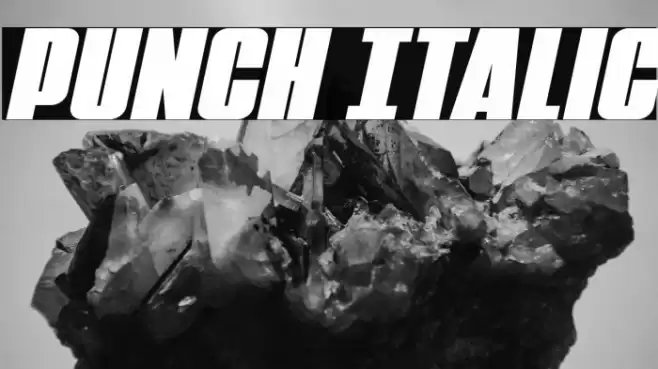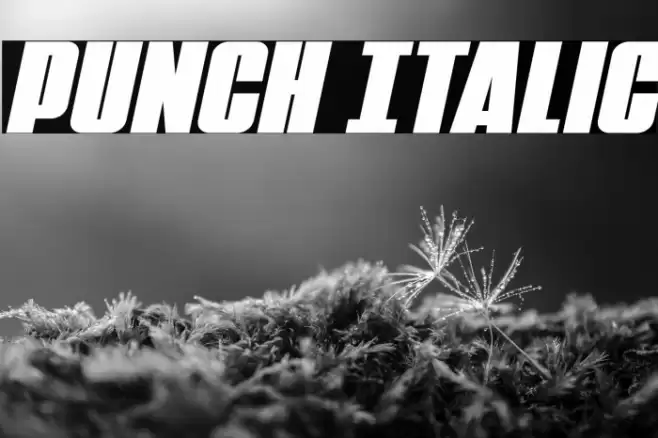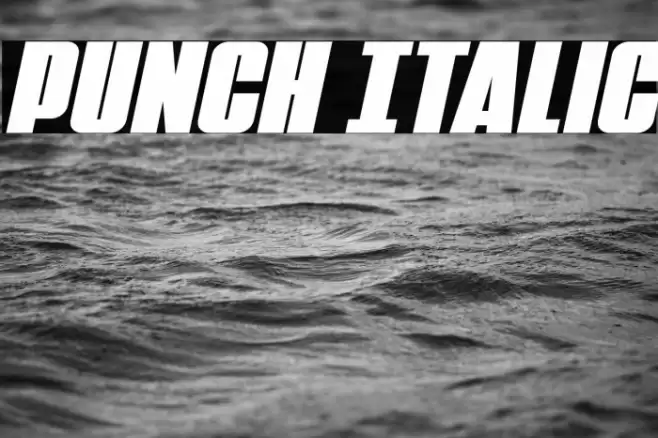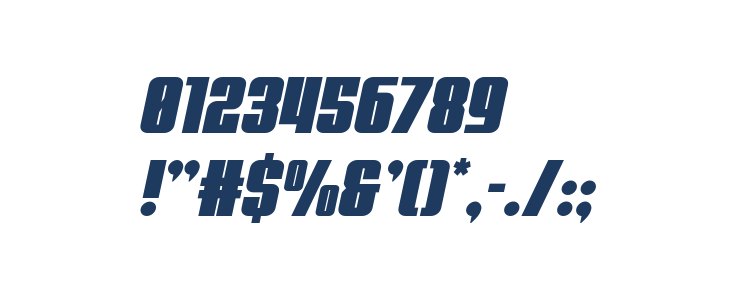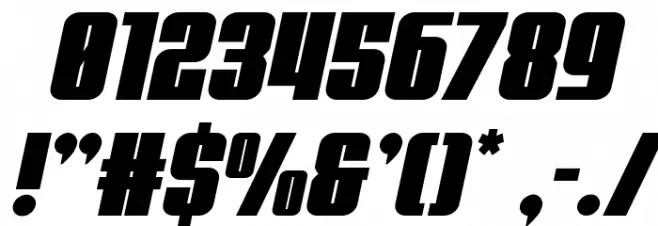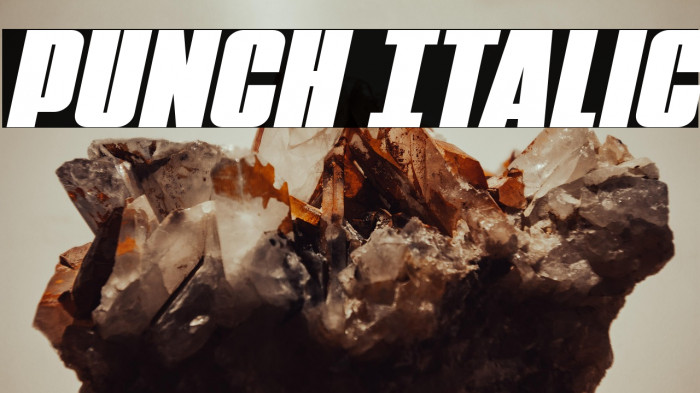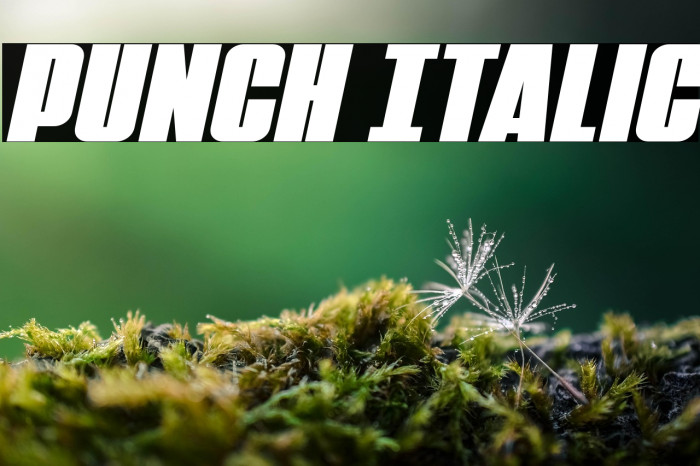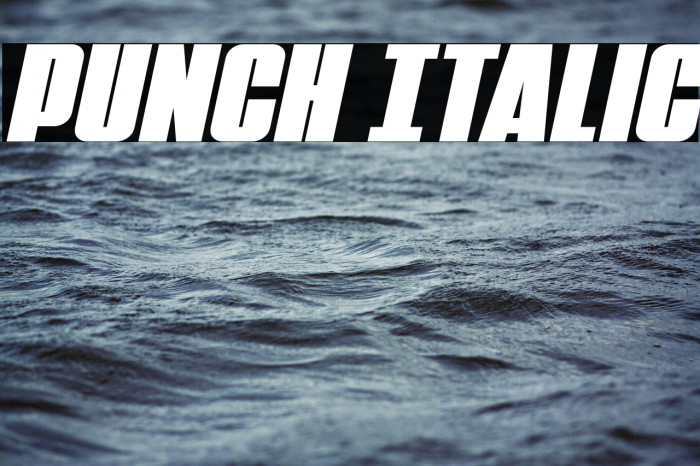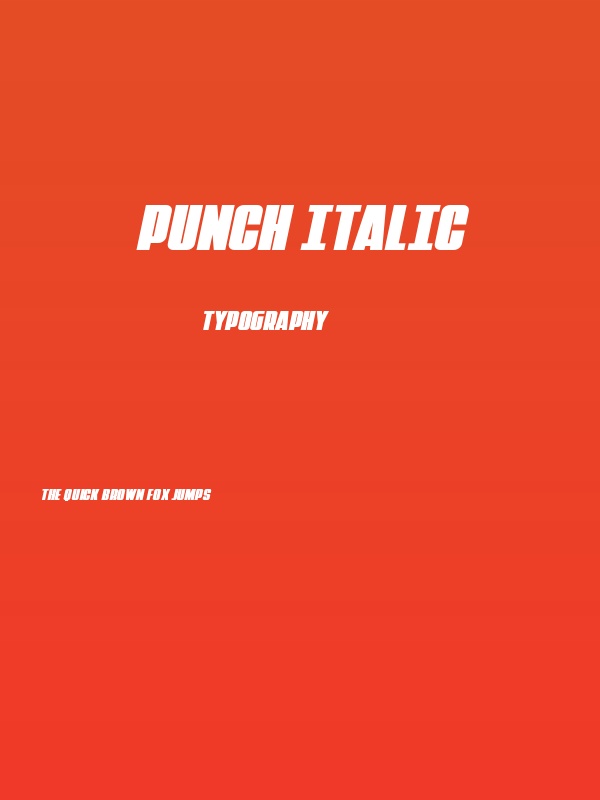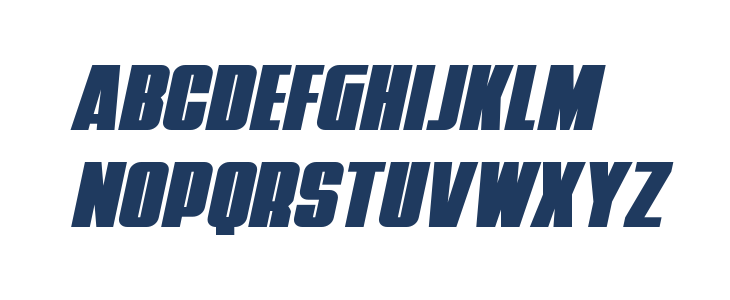
Punch Italic Font
Punch Italic Description
This font features a bold and dynamic style with a strong italic slant, giving it a sense of motion and energy. The characters are thick and blocky, with a slightly condensed width that enhances its impactful appearance. The uppercase and lowercase letters maintain a consistent weight, ensuring readability while emphasizing its bold nature. The numbers and special characters are designed to match the overall aesthetic, making it suitable for attention-grabbing headlines or titles. The high contrast in stroke thickness adds to its striking visual appeal, making it ideal for projects that require a bold statement.
A bold, italic font with a dynamic and energetic style from Regular fonts.
- Proposed Projects: Ideal for sports branding, posters, headlines, and any project needing a bold, energetic typeface.